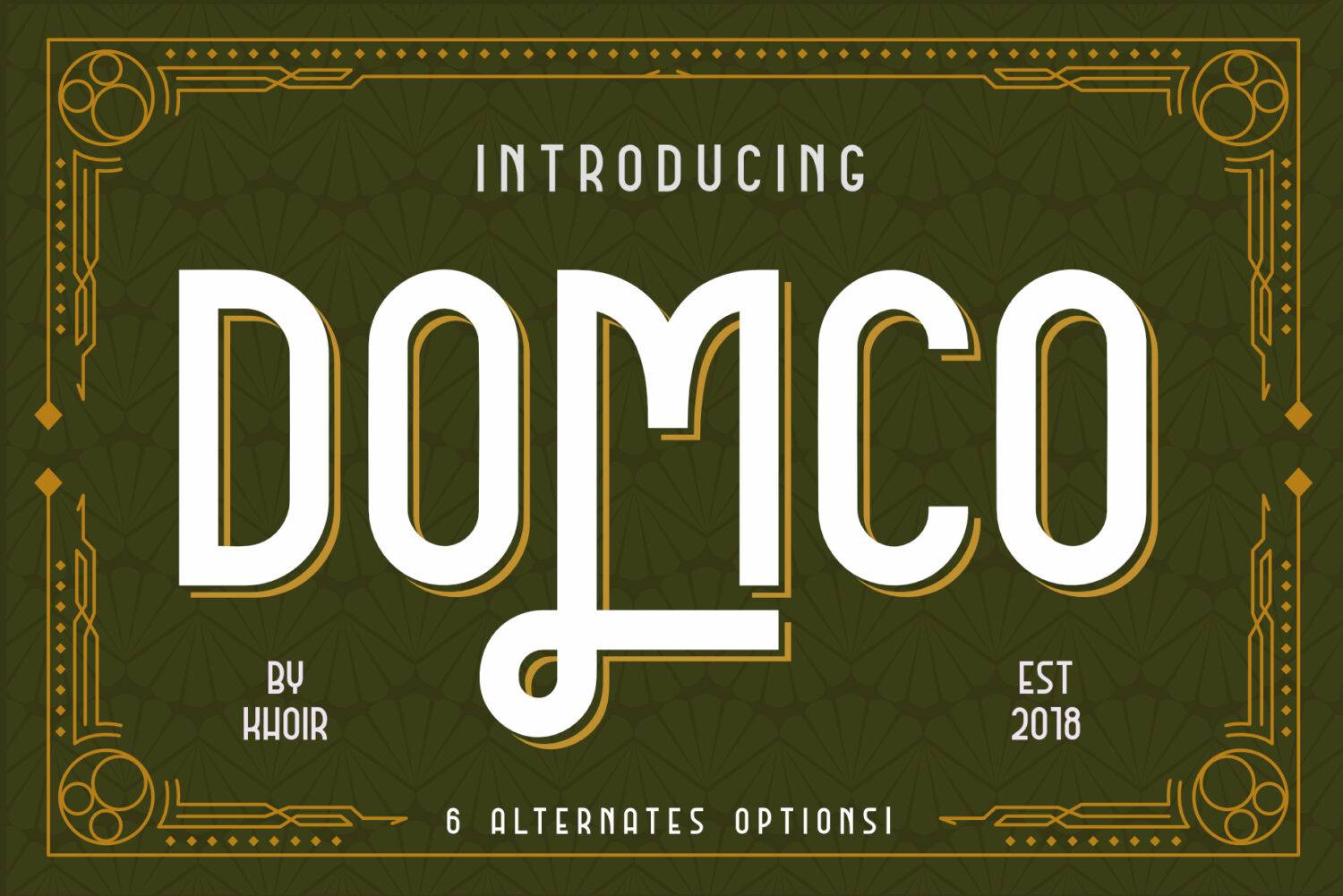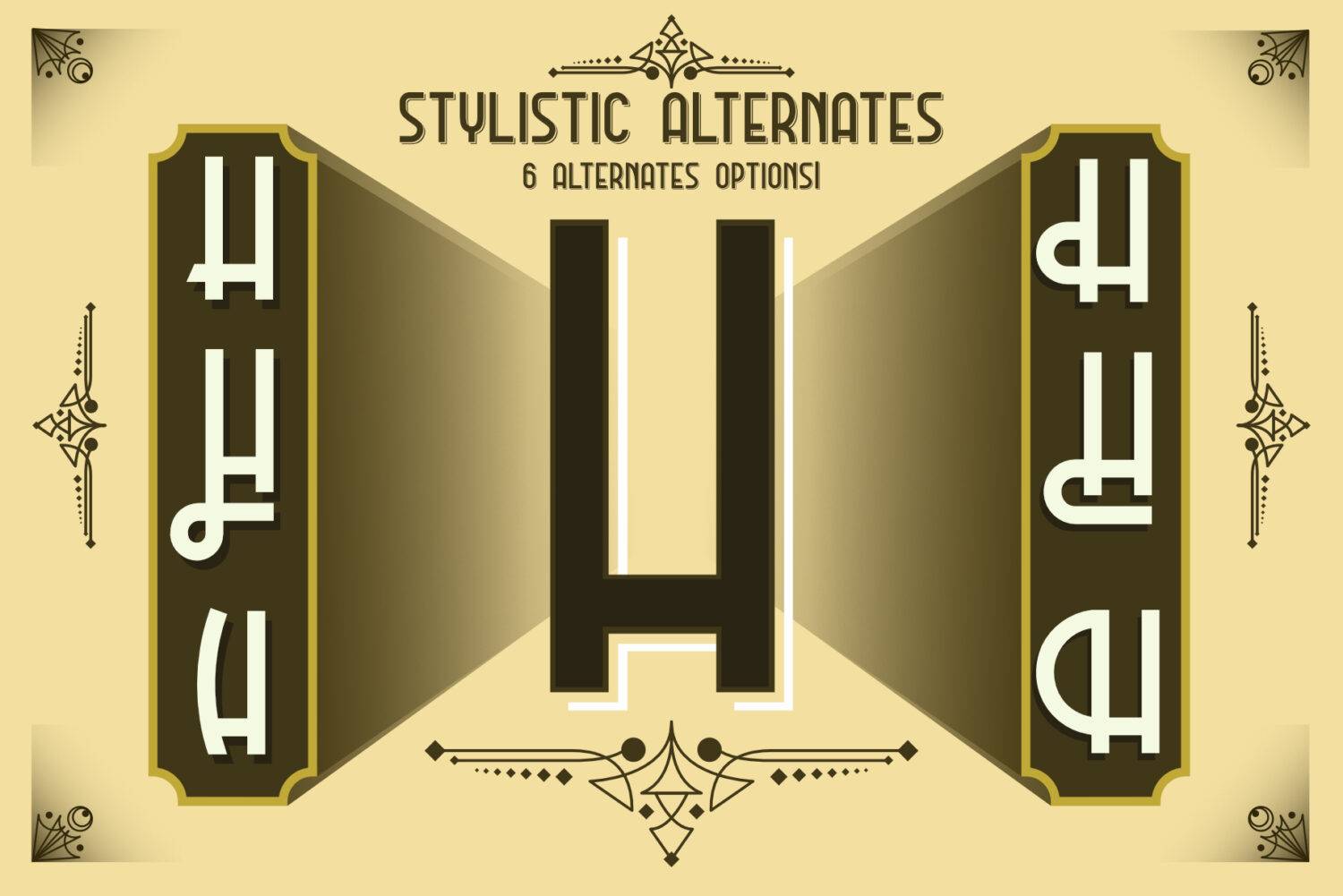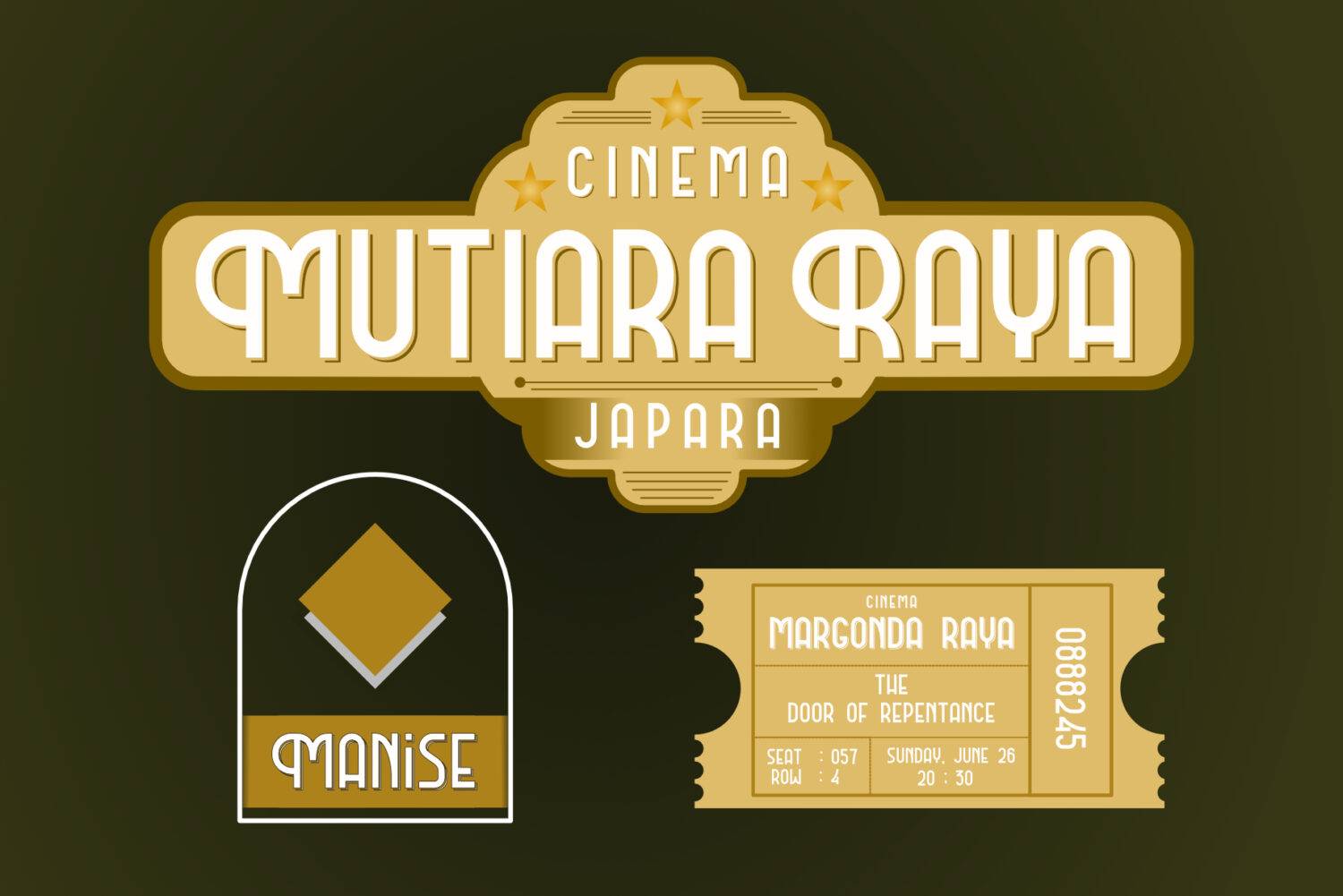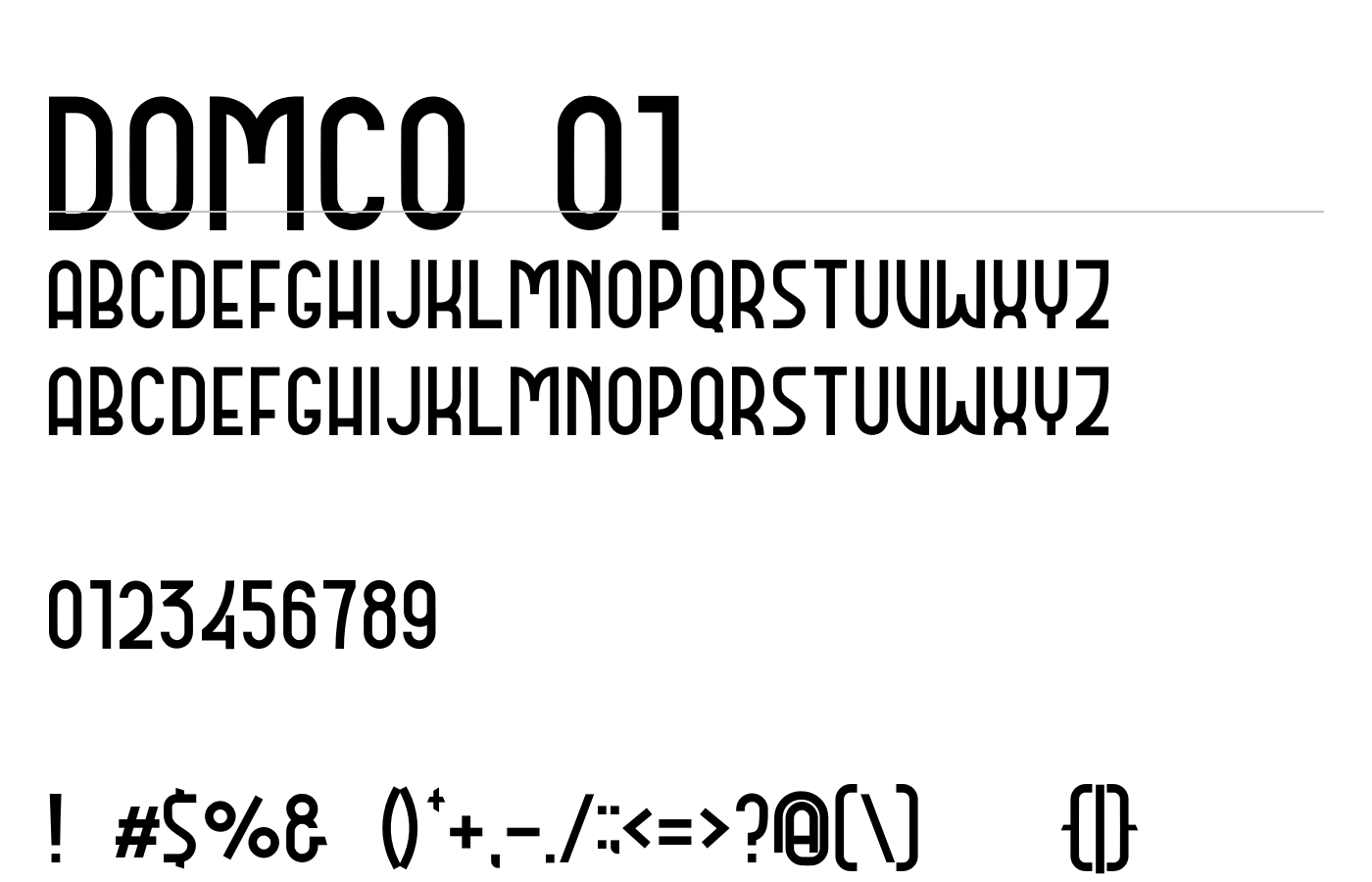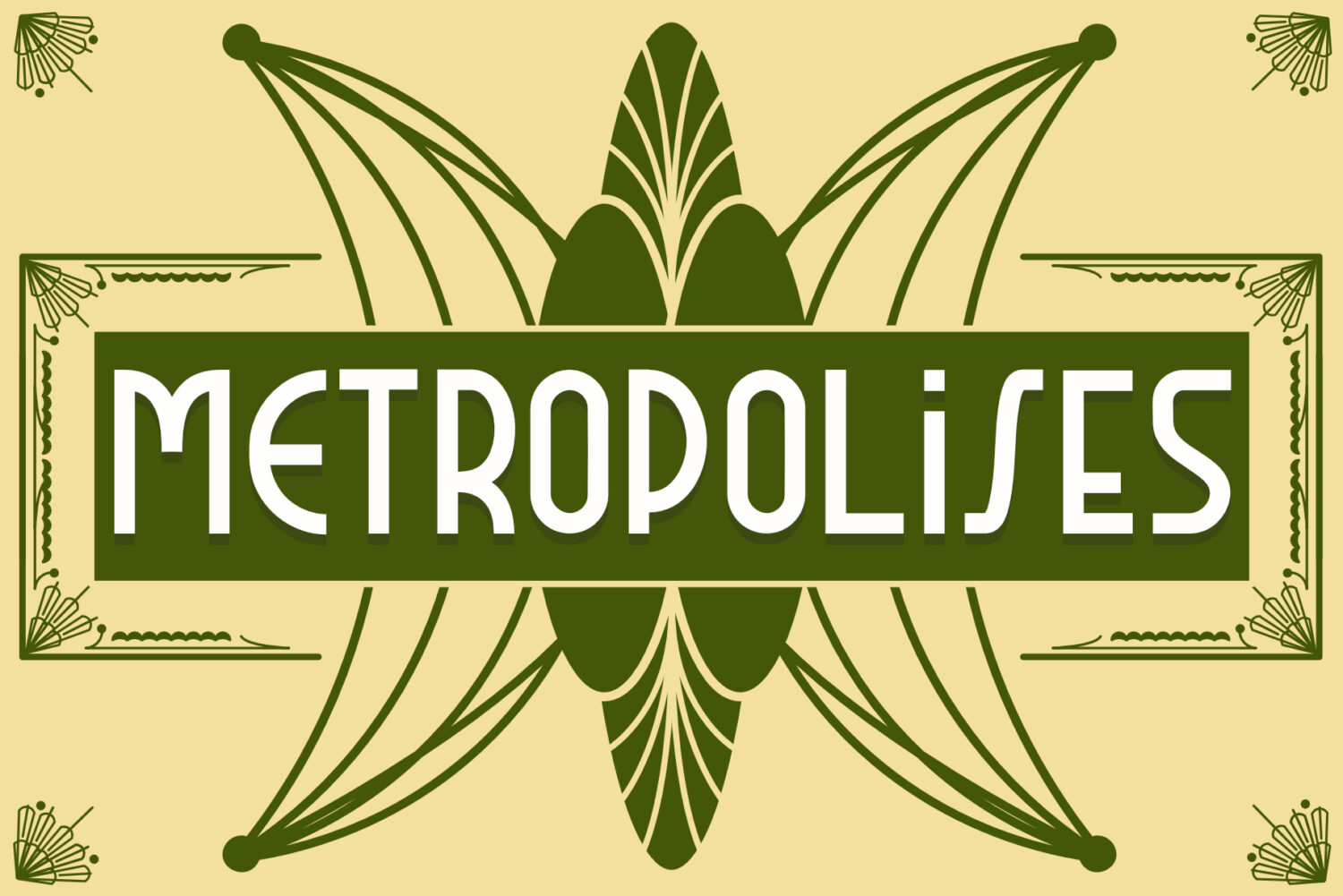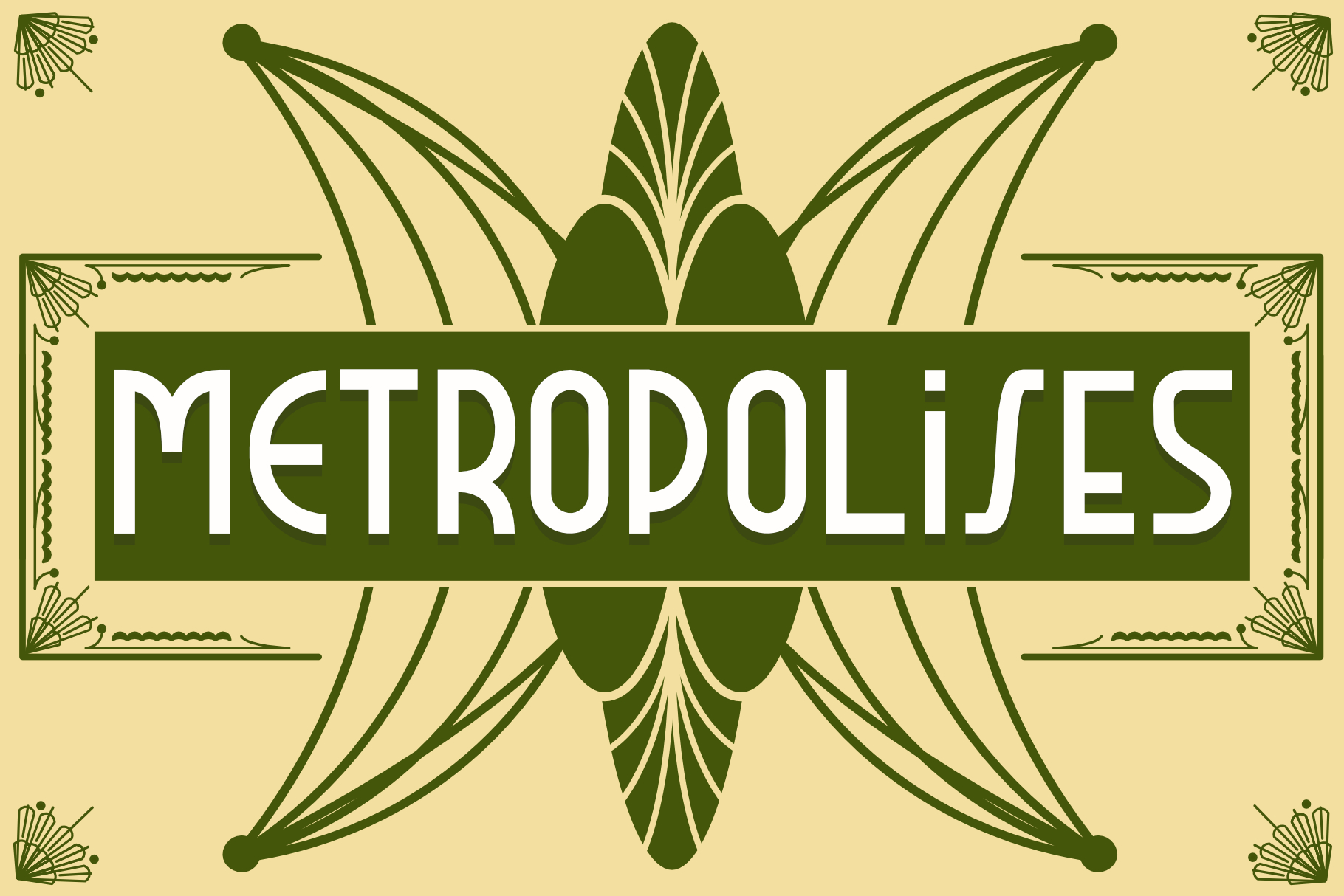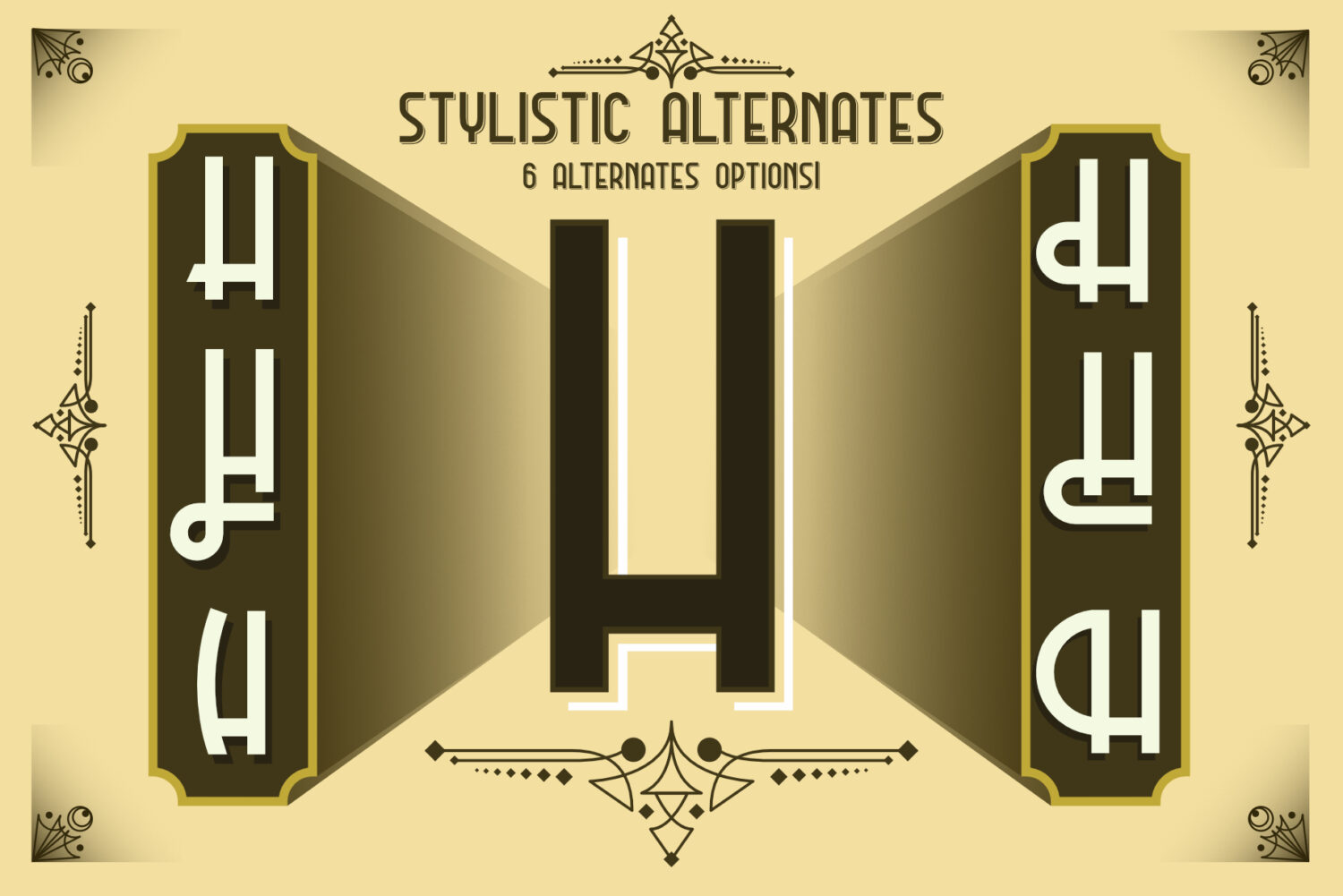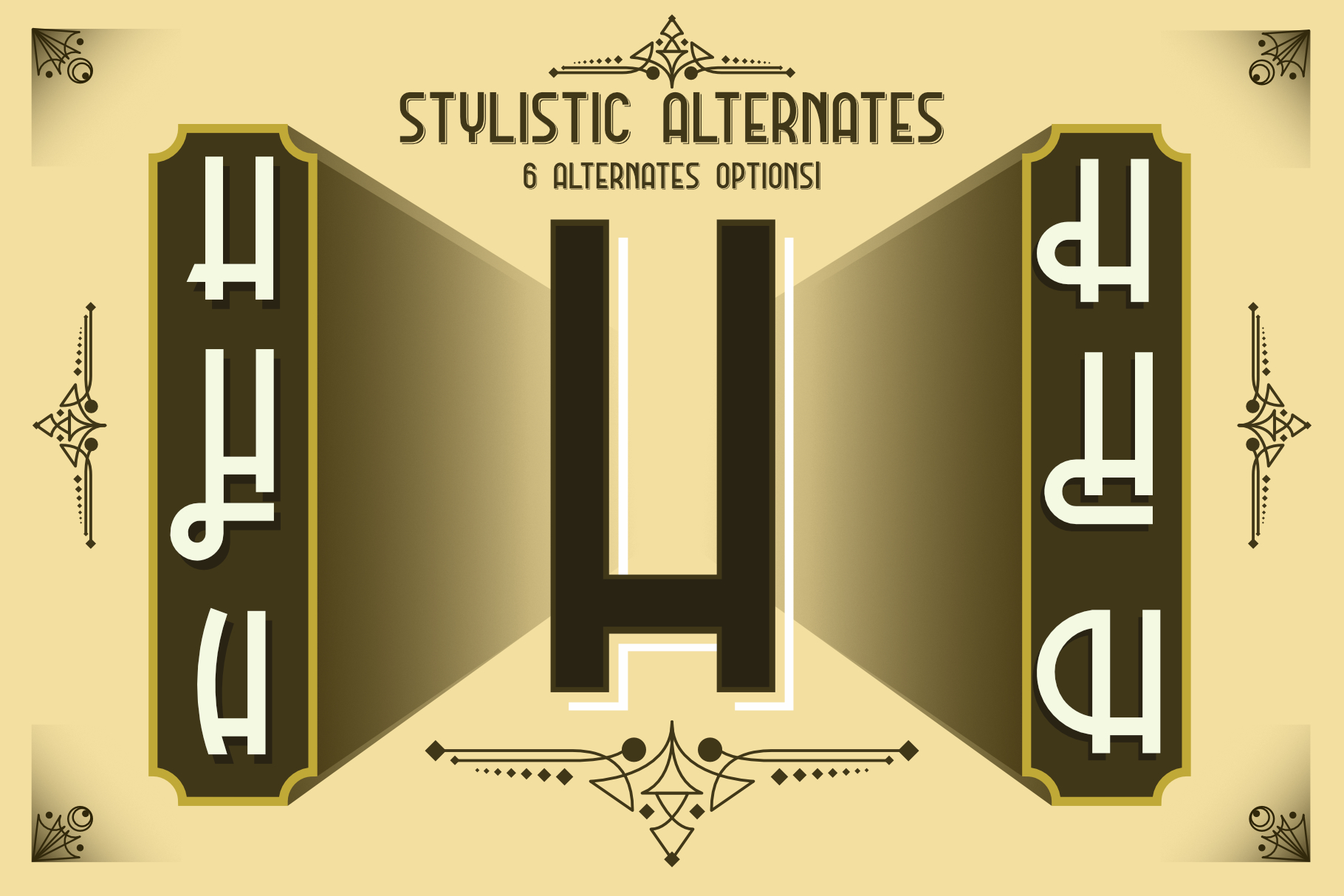
Domco is a tall, narrow sans serif font with a modern, geometric feel. Its clean lines and consistent stroke weight give it a sleek and contemporary look, making it ideal for headlines, logos, and branding that call for a stylish yet understated presence. This font works well where space is limited but clarity and impact are still important.
Domco
About Domco
| Font family | Domco |
| Release date | 2018-09-29 |
| Designer | Muhammad Romzul Khoir |